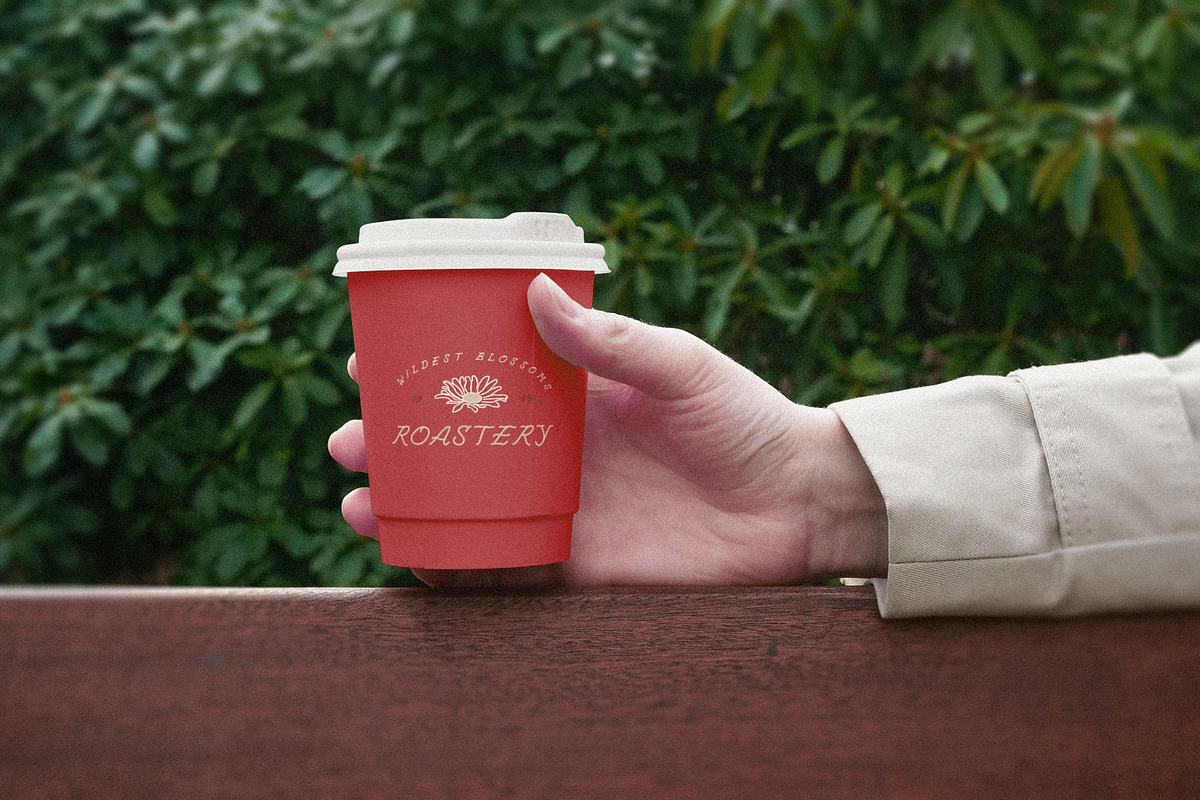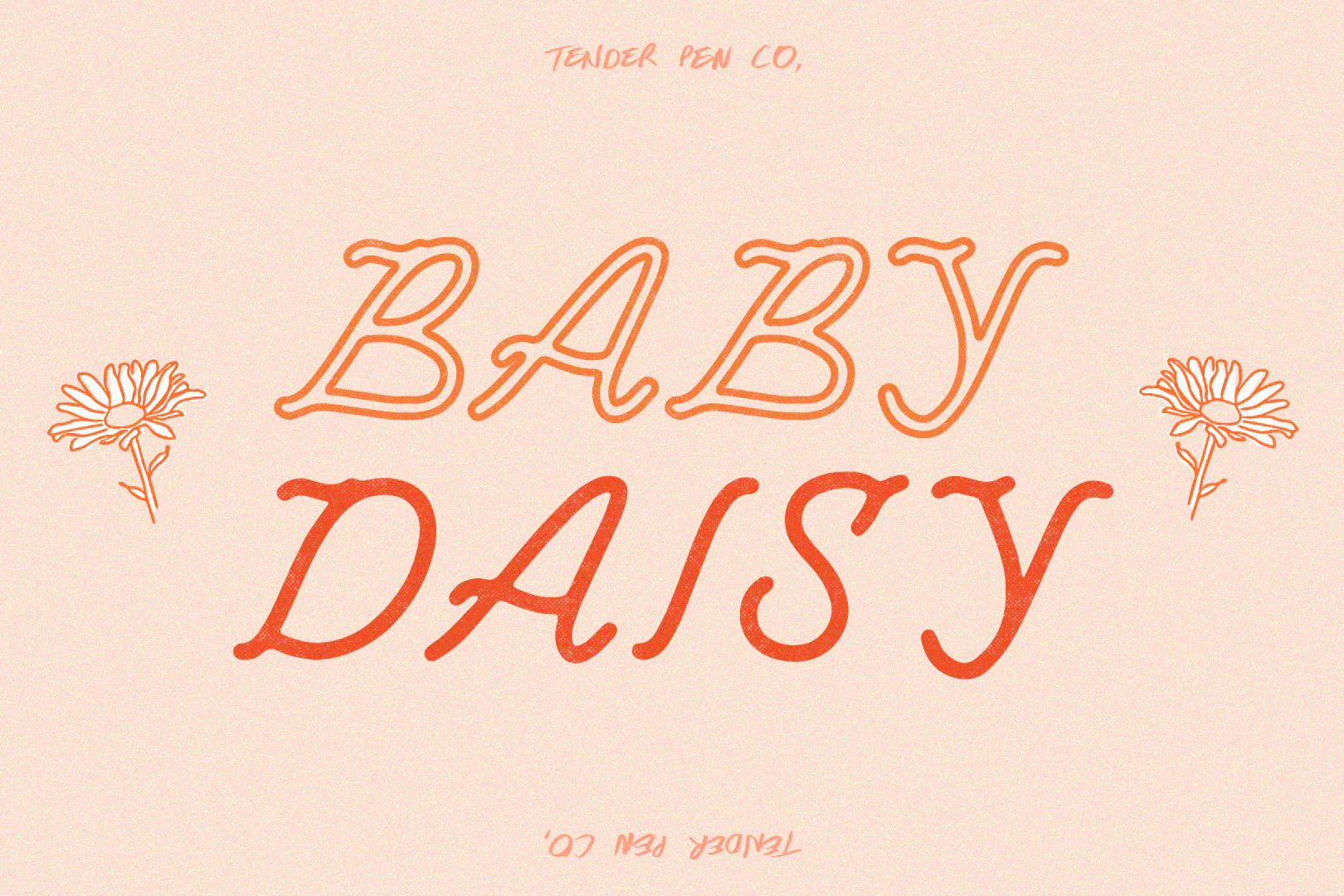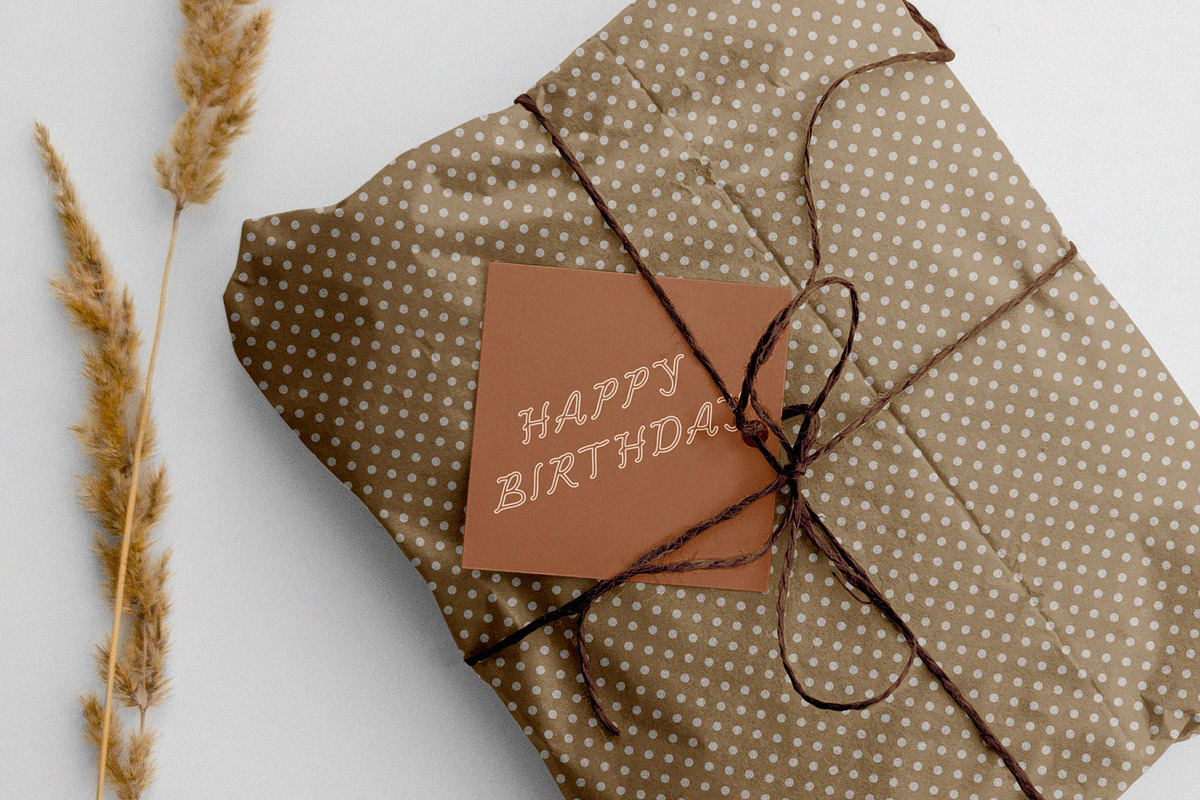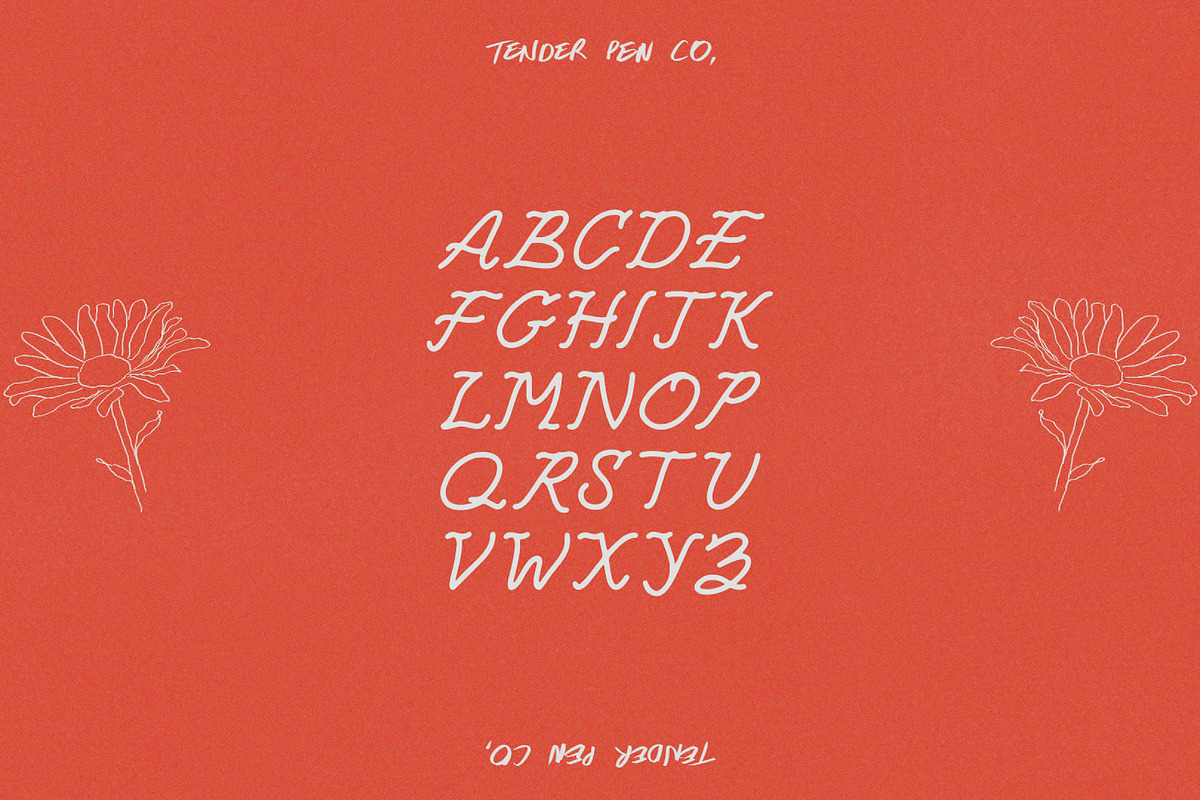
Baby Daisy | Hand Drawn Font
Baby Daisy has arrived!
Perfect for greeting cards, packaging & more, this lovely display font comes in all caps and includes numbers & punctuation.
Baby Daisy comes in both a regular and outlined version - a dreamy combo with a bit of vintage flair!